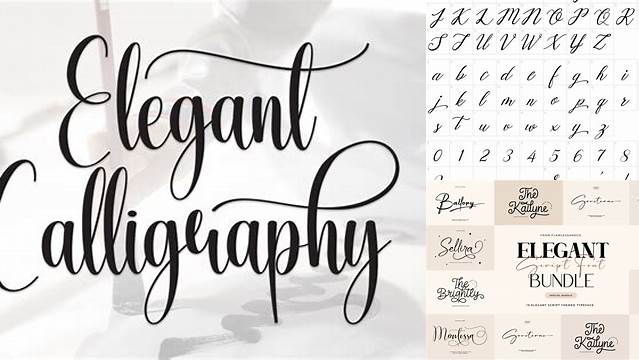
Elegant Calligraphy Fonts A To Z: The Ultimate Guide
Hey guys! Ever been mesmerized by the graceful swirls and elegant curves of calligraphy? Want to add that touch of sophistication to your designs? Well, you're in the right place! Weâre diving deep into the world of calligraphy fonts, exploring everything from A to Z. Get ready to discover some stunning fonts that can transform your projects from ordinary to extraordinary.
1. Understanding the Allure of Calligraphy Fonts
So, what's the big deal with calligraphy fonts anyway? These fonts aren't just pretty; they carry a rich history and evoke a sense of timeless elegance. Unlike regular fonts, calligraphy fonts mimic the strokes of a skilled calligrapher, bringing a personal and artistic touch to any design. Whether you're working on wedding invitations, logos, or branding materials, incorporating a calligraphy font can instantly elevate the visual appeal and make your project stand out. They have a unique way of grabbing attention and conveying a sense of quality and attention to detail.
Consider the impact of a well-chosen calligraphy font on a wedding invitation. The flowing lines and delicate curves can set a romantic and sophisticated tone, perfectly capturing the essence of the event. Similarly, in branding, a calligraphy font can communicate luxury, tradition, or creativity, depending on the specific style you choose. The versatility of calligraphy fonts is one of their greatest strengths. You can find a style to suit almost any project, from formal and traditional to modern and whimsical.
But it's not just about aesthetics. Calligraphy fonts also offer a practical advantage. They can create a visual hierarchy, highlight important information, and guide the reader's eye through the design. By using calligraphy fonts strategically, you can improve the overall readability and engagement of your project. For example, using a calligraphy font for headings or titles can draw the reader in and encourage them to explore the rest of the content. In short, understanding the allure of calligraphy fonts is the first step in harnessing their power to create truly stunning designs.
2. Exploring the Anatomy of Calligraphy Fonts
Before we jump into specific fonts, let's break down the anatomy of calligraphy fonts. Understanding these elements will help you choose the right font for your project and use it effectively. Key components include: Baseline (the line on which the letters sit), X-height (the height of the lowercase letters), Ascenders (the parts of letters that extend above the x-height), Descenders (the parts of letters that extend below the baseline), and Serifs (the small decorative strokes at the end of letter strokes).
Each of these elements plays a crucial role in the overall look and feel of the font. For example, a font with long ascenders and descenders might feel more elegant and flowing, while a font with short ascenders and descenders might appear more modern and clean. Similarly, the presence or absence of serifs can significantly impact the font's character. Serif fonts tend to feel more traditional and formal, while sans-serif fonts are often perceived as more contemporary and minimalist.
Another important aspect of calligraphy fonts is their stroke variation. This refers to the difference in thickness between the thickest and thinnest parts of the letter strokes. A font with high stroke variation will have a more dramatic and eye-catching appearance, while a font with low stroke variation will look more subtle and refined. The angle and curvature of the strokes also contribute to the overall aesthetic. Some fonts feature sharp, angular strokes, while others have smooth, rounded strokes. Understanding these nuances can help you select a calligraphy font that perfectly matches the mood and style of your project. By paying attention to these details, you can ensure that your chosen font enhances your design and communicates your intended message effectively.
3. The Art of Pairing Calligraphy Fonts
One of the trickiest aspects of using calligraphy fonts is pairing them with other fonts. You don't want to create a visual cacophony, but rather a harmonious balance. The general rule of thumb is to pair a calligraphy font with a simple, clean sans-serif font. This creates a contrast that allows the calligraphy font to shine without overwhelming the design. For example, you could pair a flowing script font with a straightforward sans-serif like Open Sans or Lato.
However, there are exceptions to every rule. If you're feeling adventurous, you could try pairing two calligraphy fonts, but be careful! Choose fonts that have different styles and weights to avoid a cluttered look. For instance, you could pair a bold, modern calligraphy font with a delicate, traditional script. The key is to ensure that the two fonts complement each other rather than compete. Another approach is to use the calligraphy font sparingly, such as for headings or logos, and use a more readable font for body text. This ensures that your design remains accessible and easy to read.
When choosing fonts to pair with calligraphy, consider the overall tone and style of your project. A formal event might call for a sophisticated serif font, while a more casual project could benefit from a playful sans-serif. Experiment with different combinations until you find a pairing that feels just right. Don't be afraid to break the rules and try something unexpected, but always keep readability and visual harmony in mind. Ultimately, the art of pairing calligraphy fonts is about creating a balanced and visually appealing design that effectively communicates your message.
When incorporating calligraphy fonts into your branding, remember to keep it simple. A complex and intricate font can be difficult to read and may not scale well. Focus on creating a clean and memorable logo that effectively represents your brand. You can also pair a calligraphy font with a simpler sans-serif font to create a balanced and visually appealing design. By using calligraphy fonts strategically, you can create a brand that is both unique and impactful.